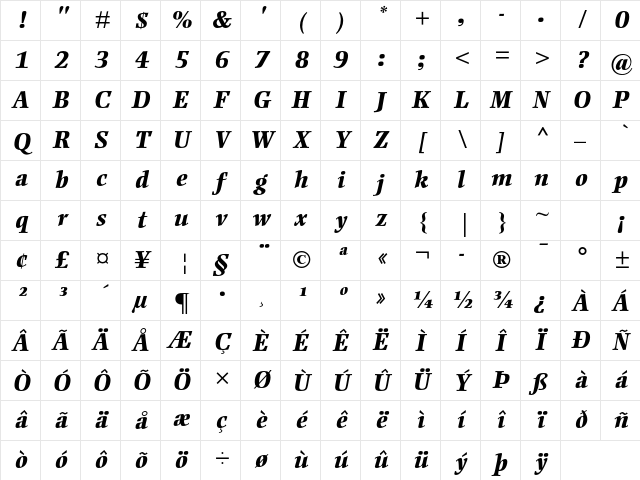
Ellington MT Std Extra Bold Italic
Style: Extra Bold Italic
Designer: Michael Harvey
Design Context for Ellington MT Std
Ellington MT Std is a composed and adaptable typeface that performs quietly and consistently across a wide range of design contexts. The slanted form adds forward momentum and visual energy. Its bold stroke weight gives it real presence on the page.